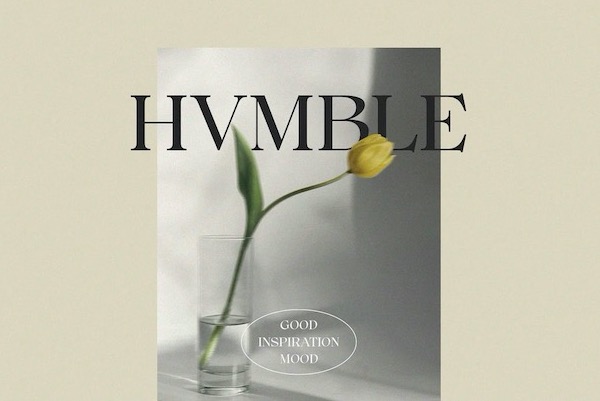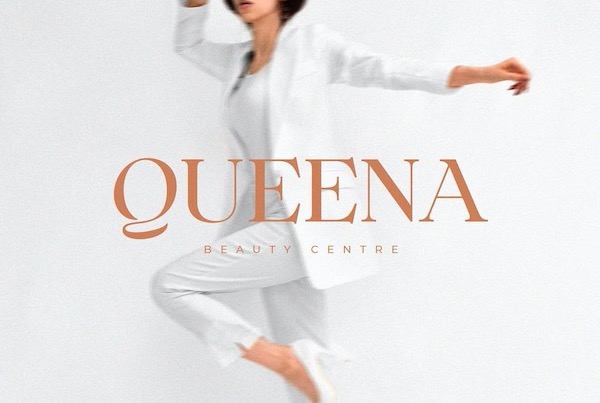
Auliare is a modern classy serif font that was created and shared by BrandSemut. This Font has a classic and vintage look so it’s the best choice for headings, logos, branding, magazines, product packaging, and invitations. Auliare comes with clean lines and smooth curves giving any project an extra touch of class.
Auliare Serif Font
Publisher: BrandSemut